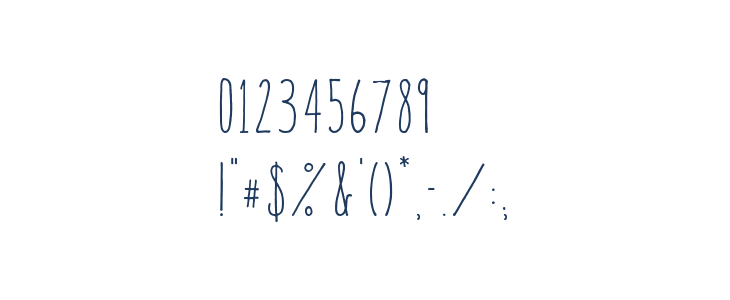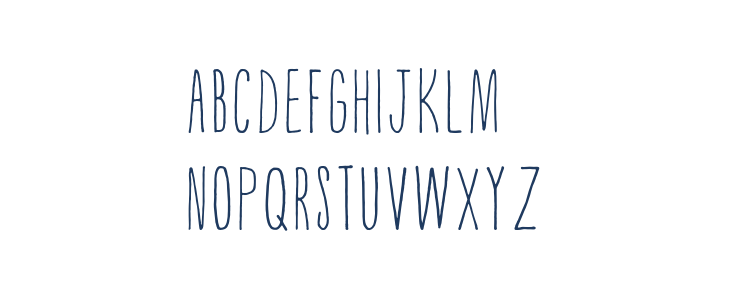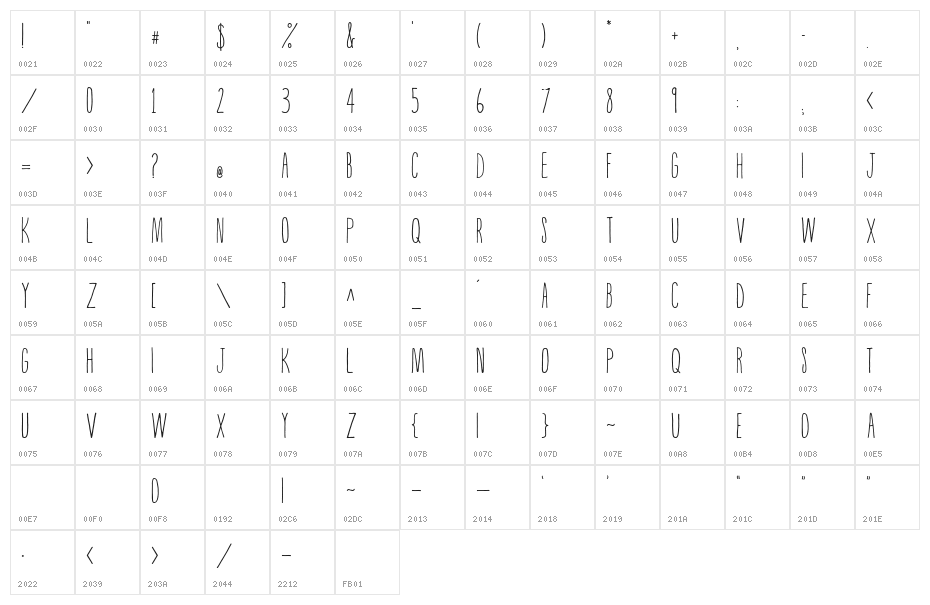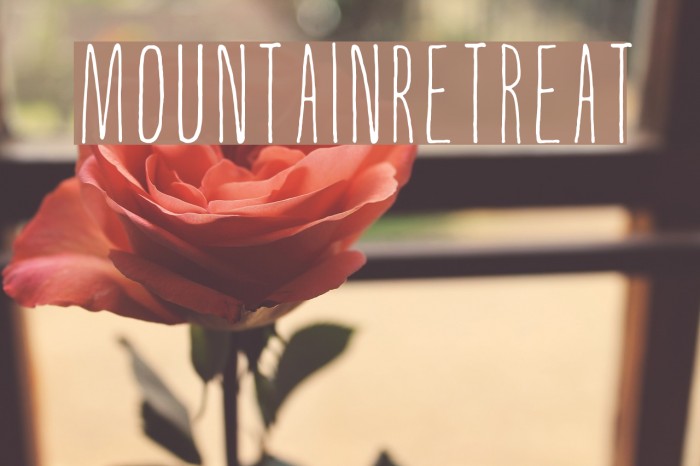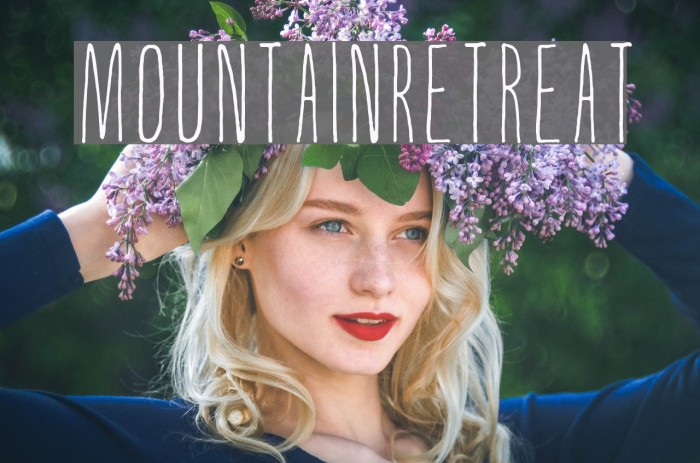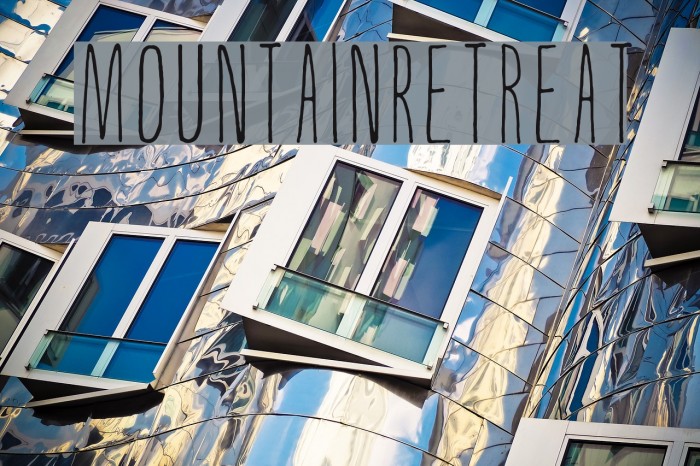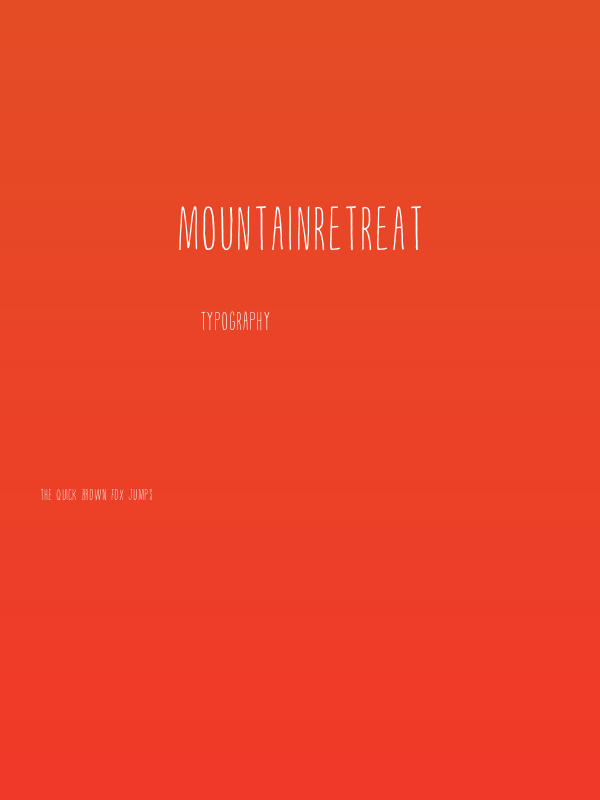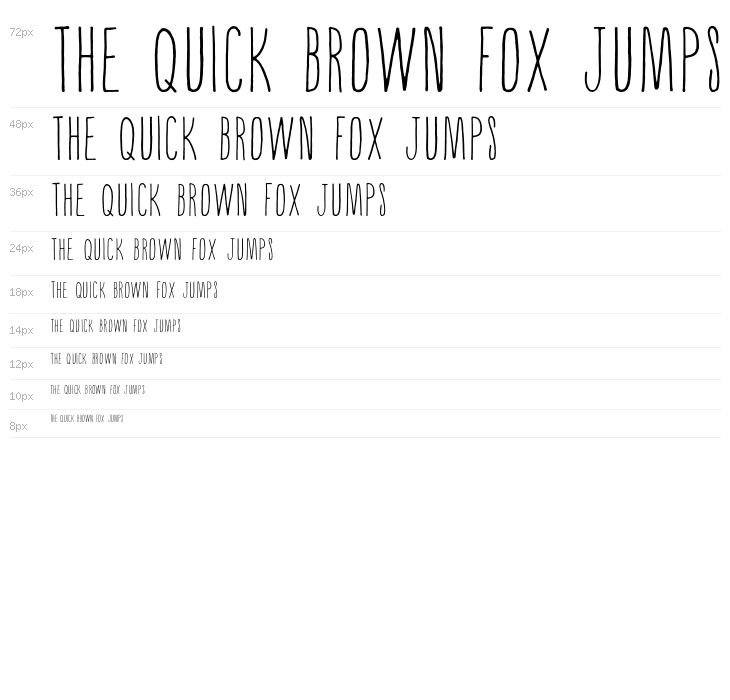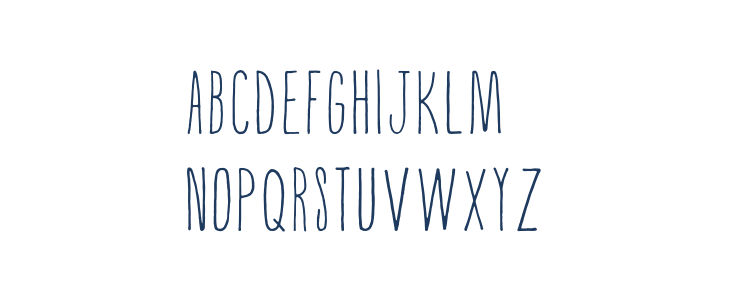
MountainRetreat Font
MountainRetreat Description
This font features a tall and narrow design with a hand-drawn aesthetic, giving it a rustic and organic feel. The characters are elongated with uneven strokes, adding a touch of whimsy and charm. The uppercase and lowercase letters maintain a consistent style, with slightly irregular lines that enhance its handcrafted appearance. The numerals and special characters follow the same design principles, ensuring a cohesive look across all glyphs. This font is ideal for projects that require a personal and approachable touch, such as invitations, greeting cards, or branding for artisanal products.
| Overall Style | Rustic |
| Proposed Projects | Ideal for invitations, greeting cards, artisanal product branding, and rustic-themed designs. |